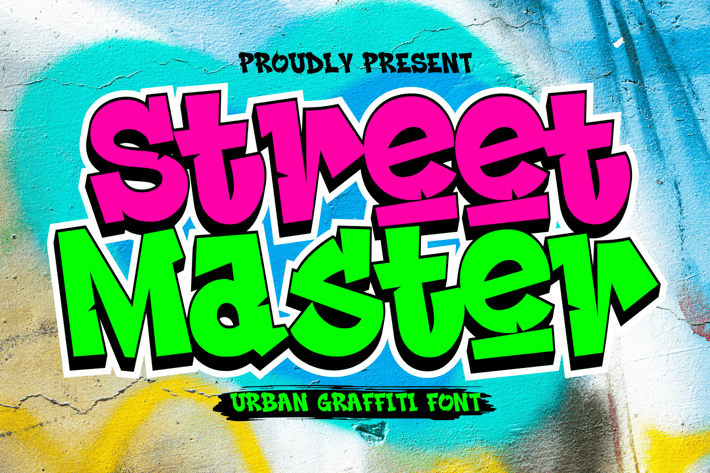
Street Master – Graffity Font
Street Master is a bold graffiti font that brings urban energy and street art vibes to your designs. With its edgy, hand-sprayed style, it’s perfect for posters, logos, and any project that needs a raw, artistic touch. Unleash your creativity with Street Master and make a statement that stands out!
3 Style Regular, Extrude & Shadow